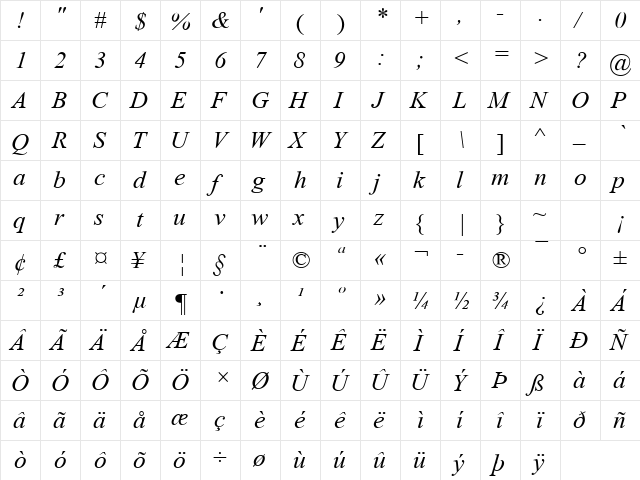
Aboriginal Serif Italic
| Foundry | Chris Harvey |
| Designer | Chris Harvey |
Design Context for Aboriginal Serif Typeface
Aboriginal Serif brings classic typographic sensibility to the table — its serifs and measured letterforms reflect centuries of print heritage. Its italic angle brings a sense of urgency and motion to the letterforms.
Pro Tip: Use Aboriginal Serif for editorial body copy and considered headline work. Pair with a neutral sans for UI elements or captions to create a classic hierarchy.